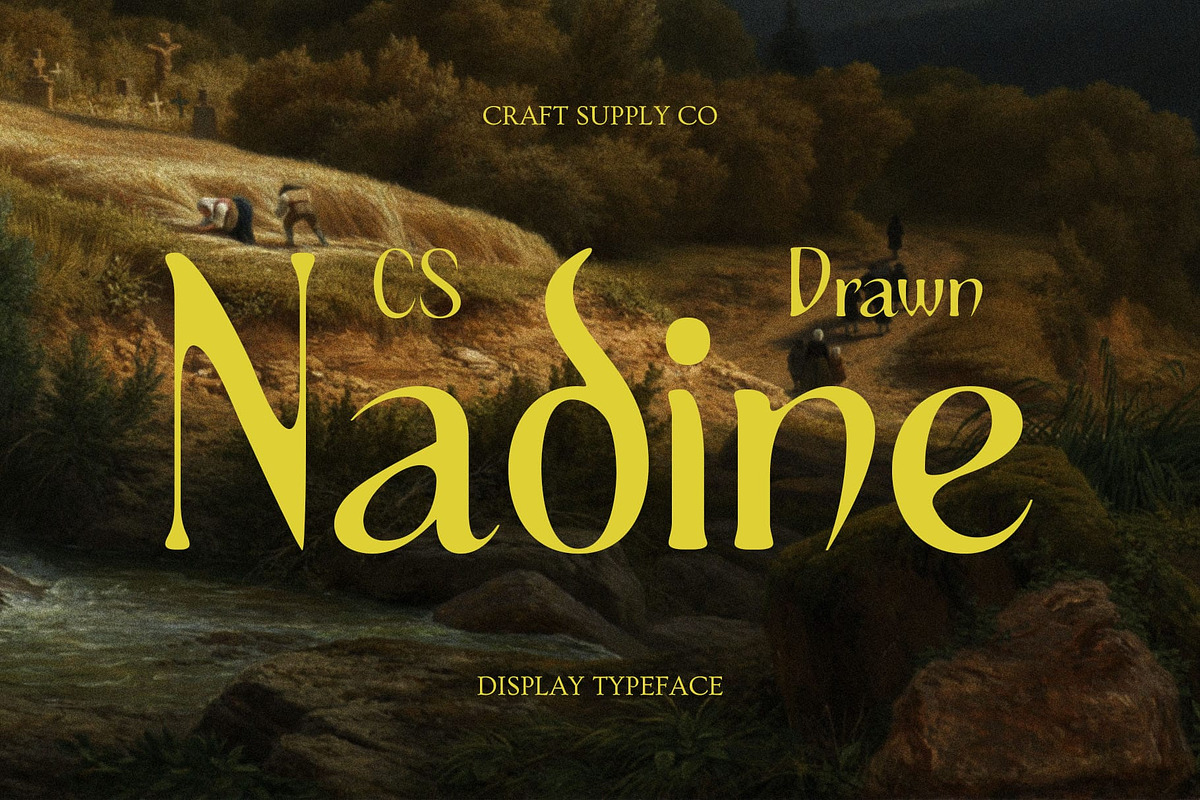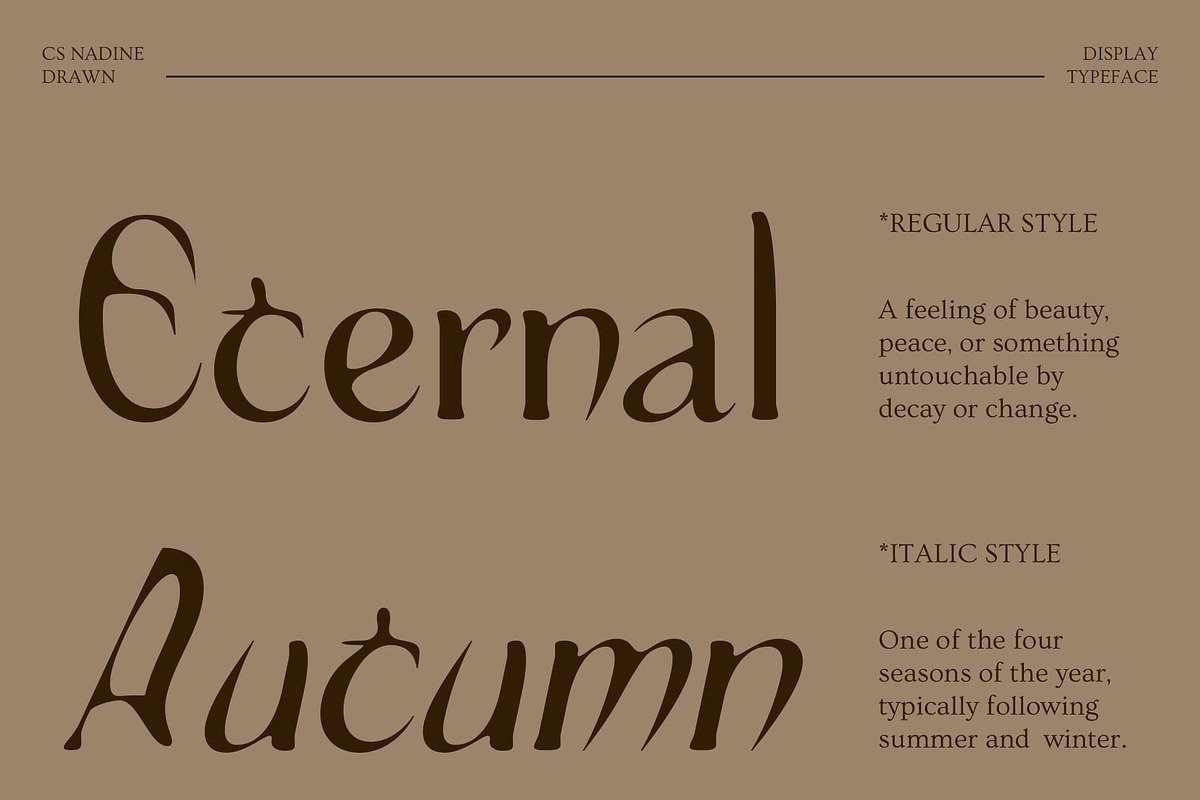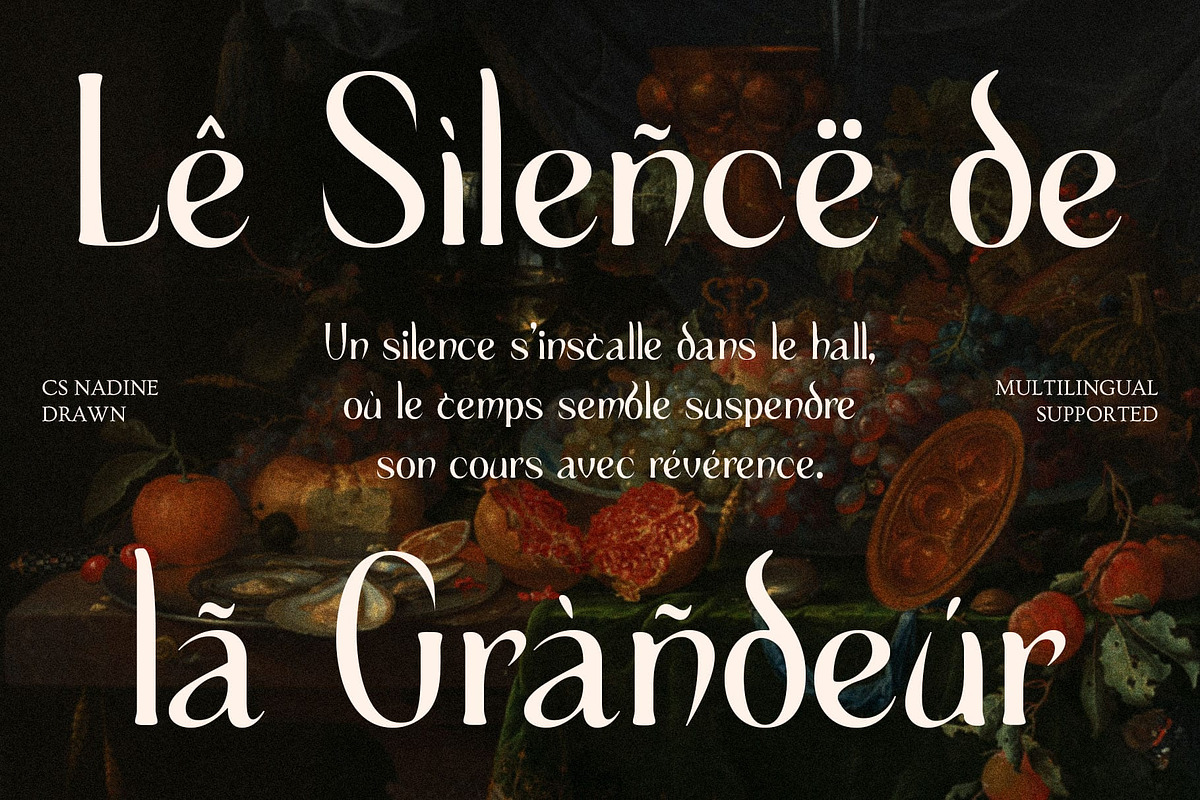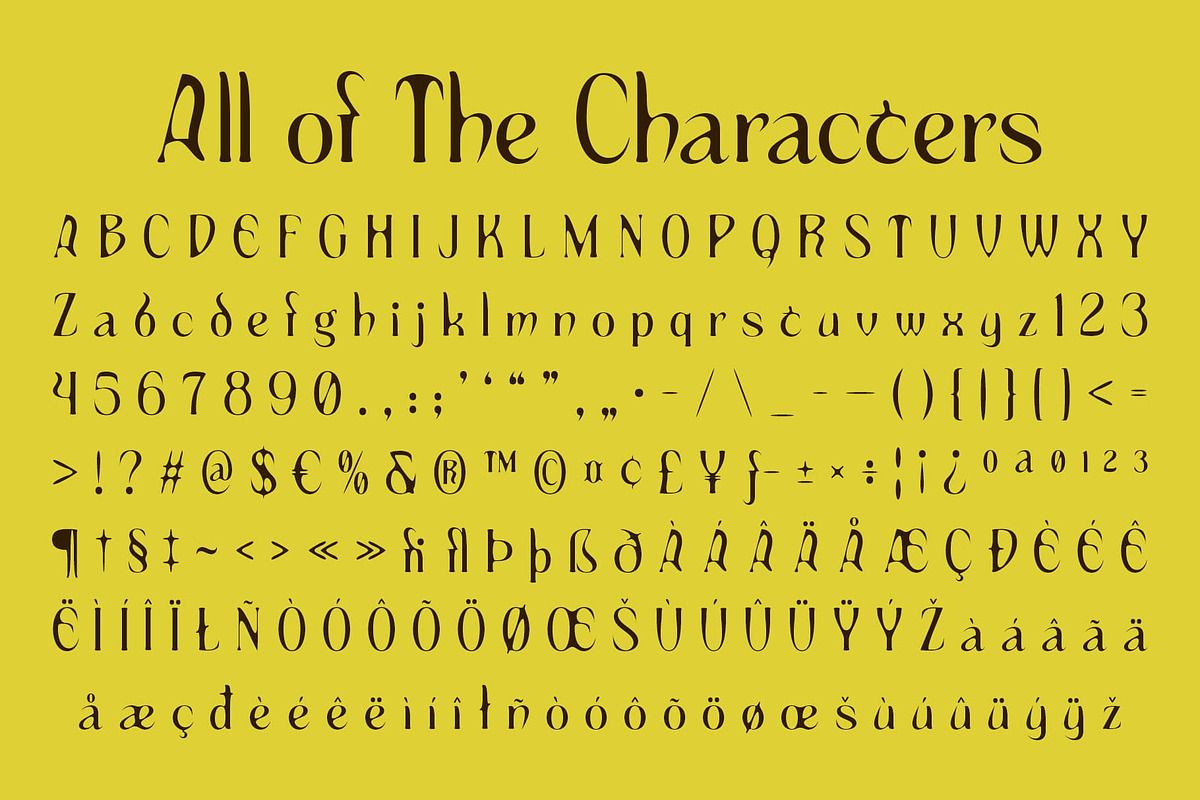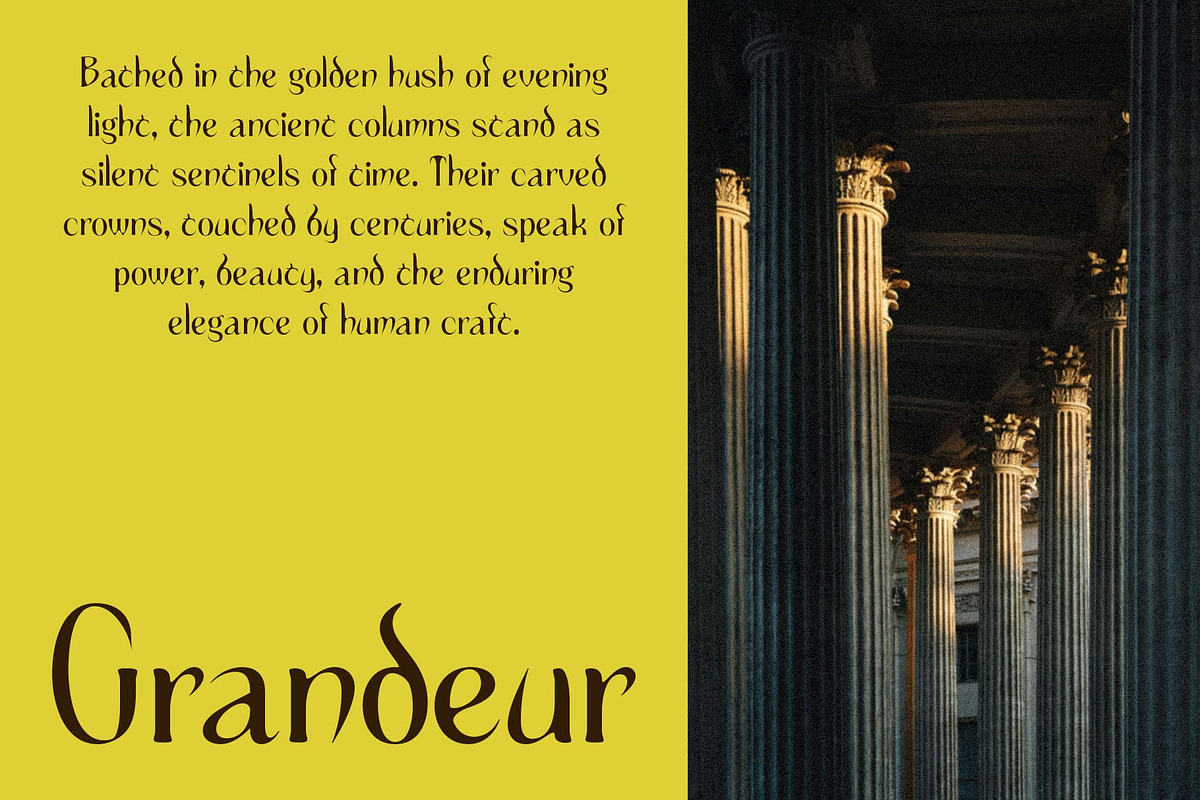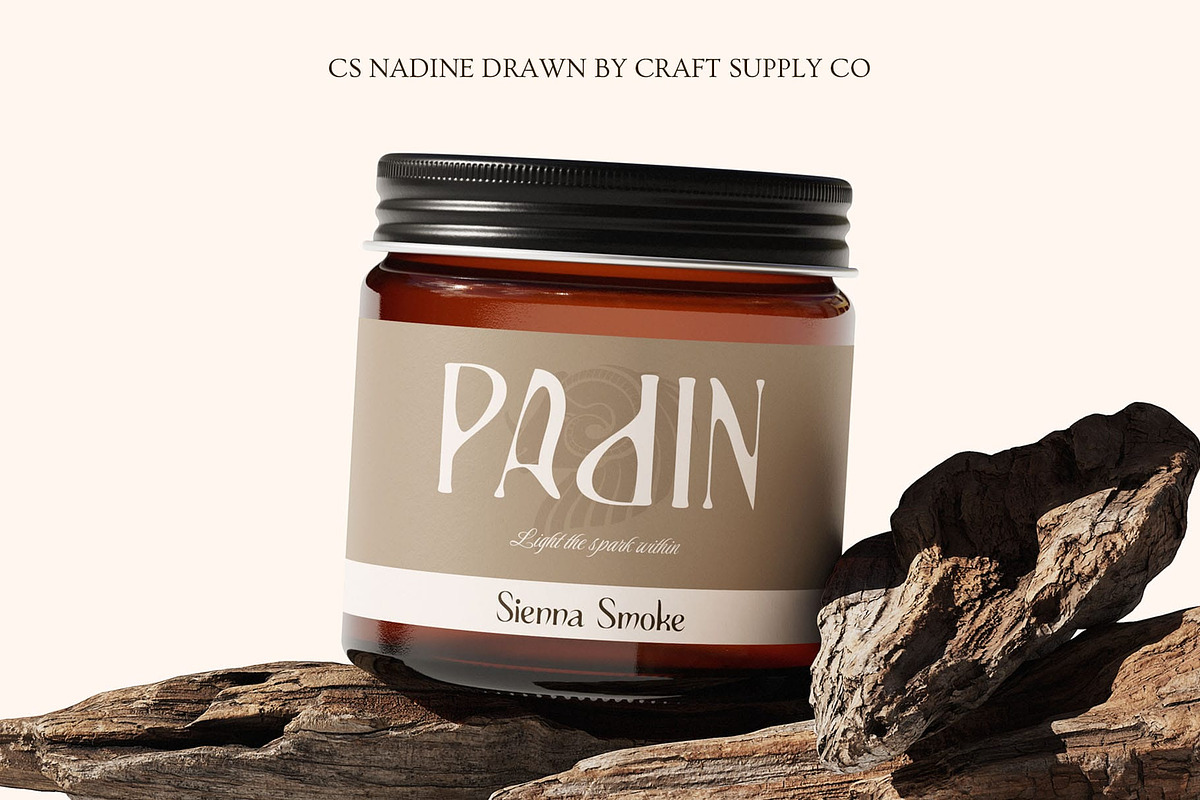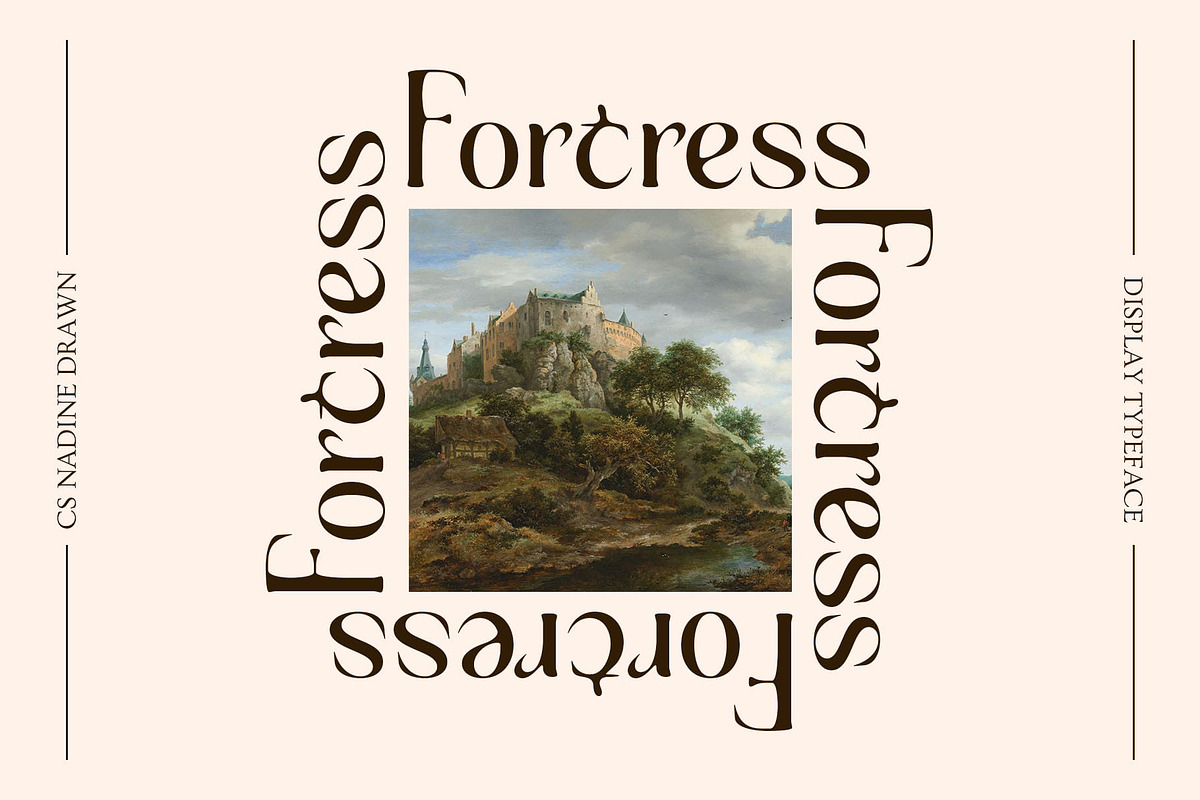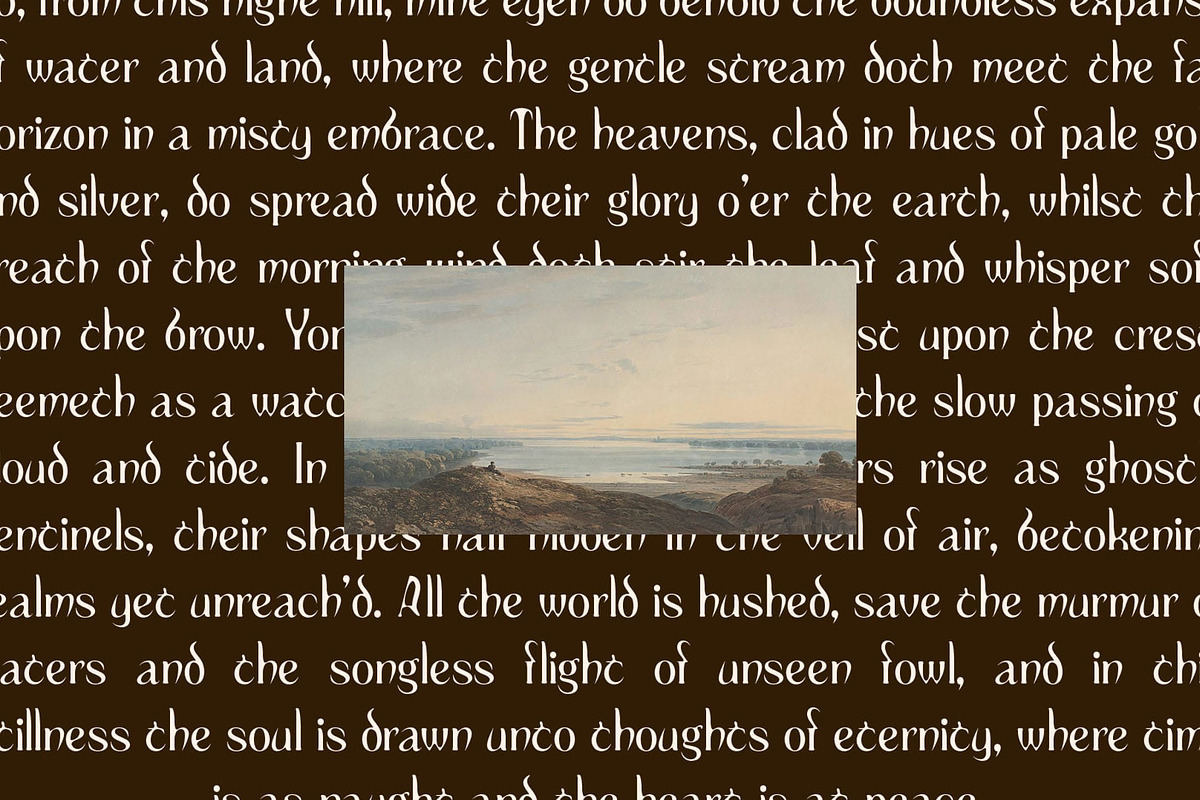
CS Nadine Drawn
CS Nadine Drawn – Modern Display Serif with Uncial Elegance
Classic Uncial Meets Contemporary Design CS Nadine Drawn blends timeless uncial forms with a clean, modern serif structure. Its elegant curves and balanced proportions create a refined display font that bridges tradition and contemporary aesthetics, making it perfect for sophisticated design projects.
Artistic Drawn Texture Enhanced with a subtle drawn effect, each letter carries a handmade, textured quality. This artistic detail adds character and individuality, ensuring that your typography feels expressive, dynamic, and visually engaging in any creative application.
Elegance with Distinctive Character Striking the perfect balance between classic sophistication and modern style, this classic and timeless font works seamlessly for luxury branding, editorial layouts, and high-end design projects. Its expressive forms convey a sense of prestige while maintaining readability and visual harmony.
Versatile Creative Applications From posters and book covers to premium branding and digital projects, this expressive and unique font adapts effortlessly to various design contexts. Its combination of uncial inspiration and drawn texture makes it ideal for projects that aim to communicate elegance, creativity, and distinctive style.
Refined Presence in Every Design With graceful curves, consistent proportions, and subtle handcrafted detailing, this decorative and eye-catching font offers a polished, sophisticated presence. The font’s unique blend of tradition and artistry ensures that every project stands out with elegance, personality, and visual appeal.